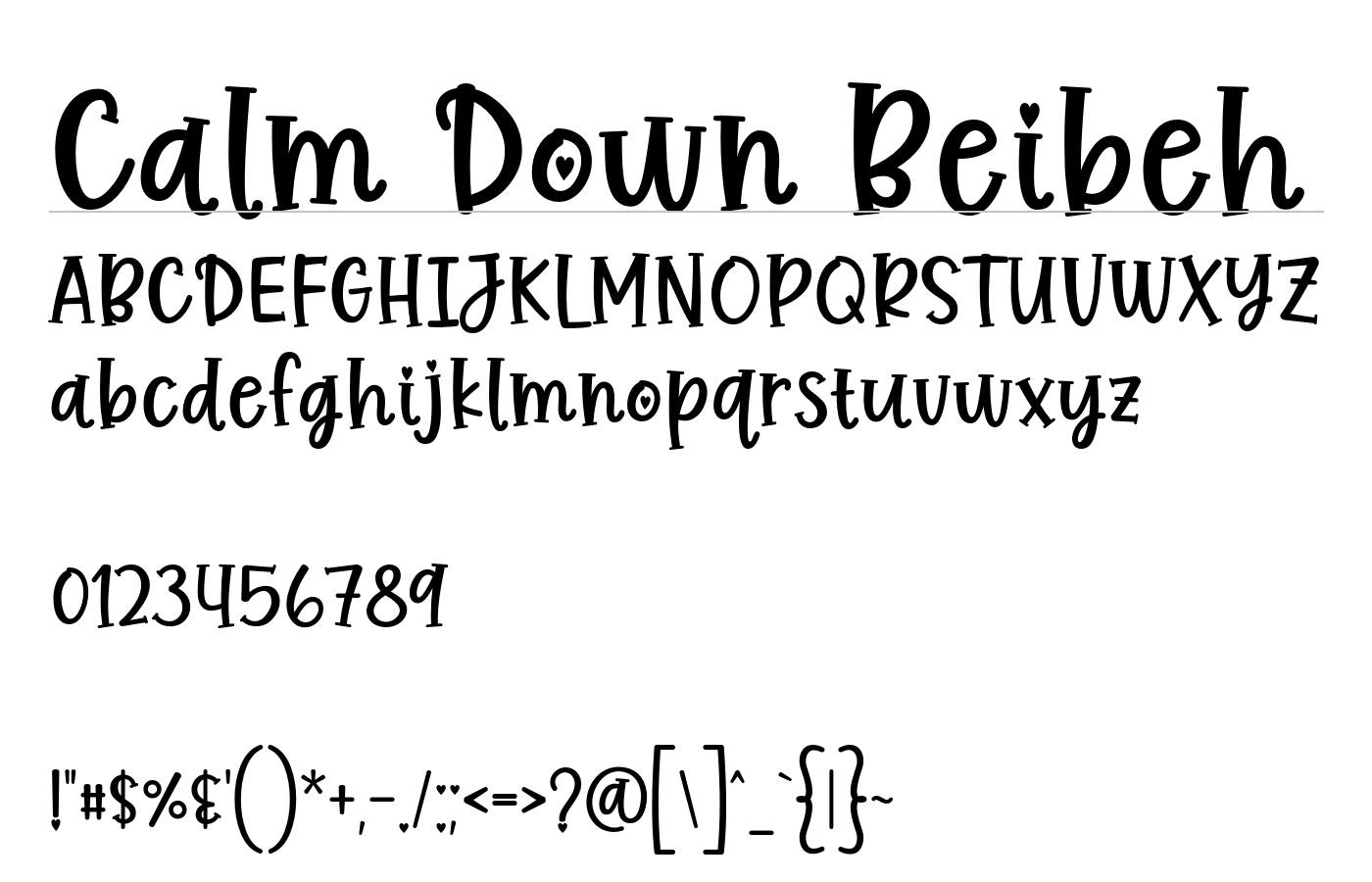
Calm Down Beibeh is a playful handwritten font with a casual and friendly vibe, featuring medium weight and slightly condensed letterforms that create a lively, dynamic feel. Its quirky details, such as heart shapes dotted in the letters and gentle curves, give it a whimsical charm perfect for fun, informal designs. This font works well for greeting cards, invitations, branding for children’s products, and any creative project that benefits from a warm, approachable personality.
Calm Down Beibeh Font
About Calm Down Beibeh Font